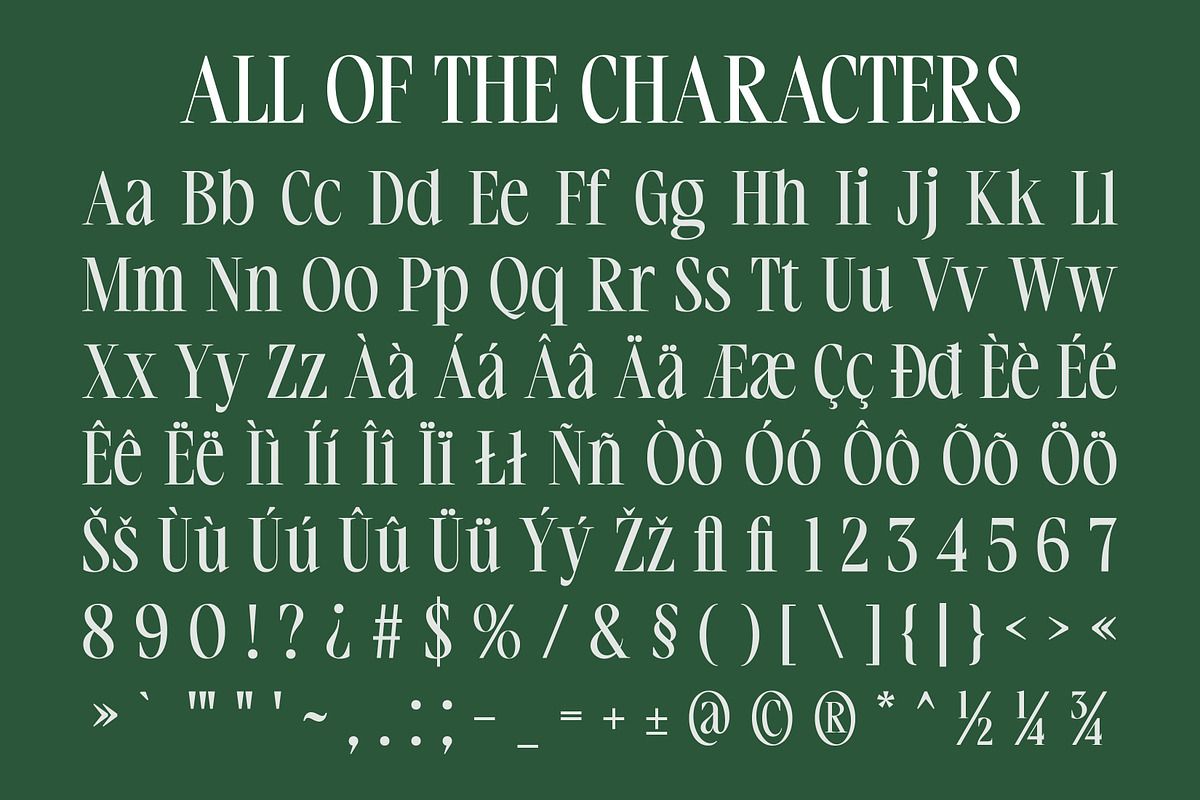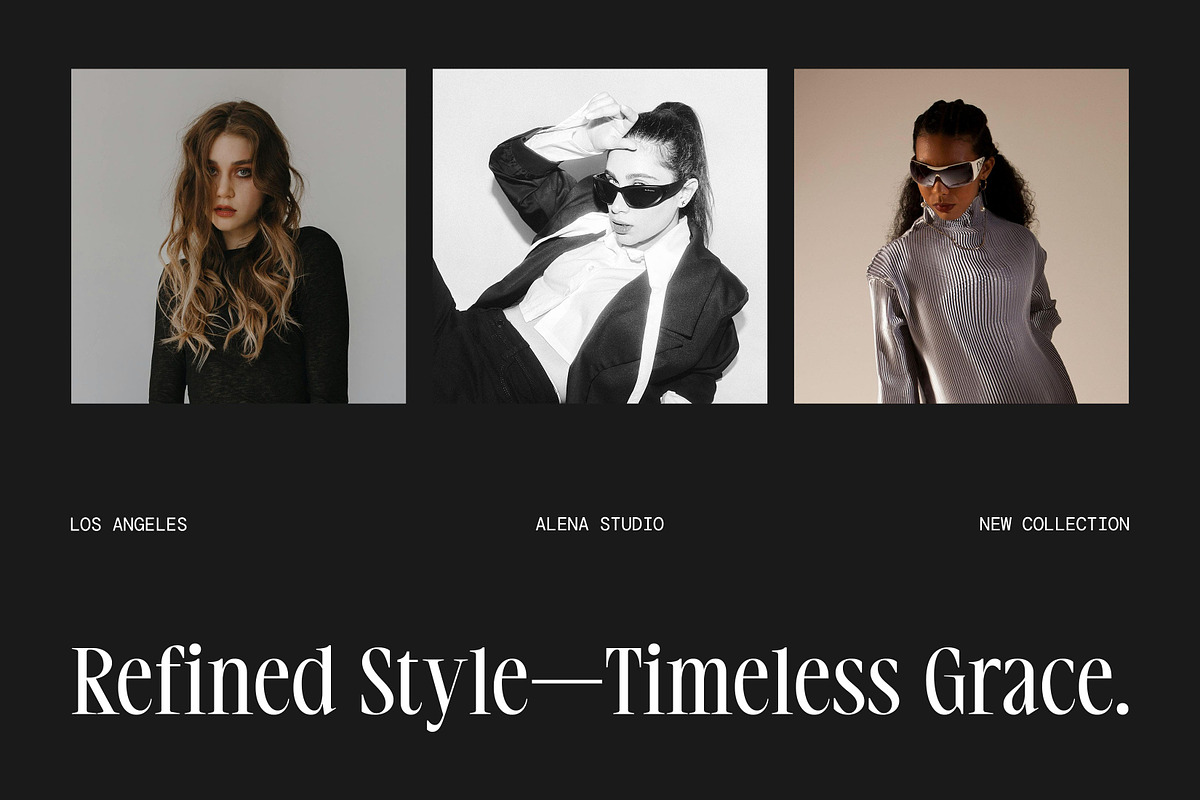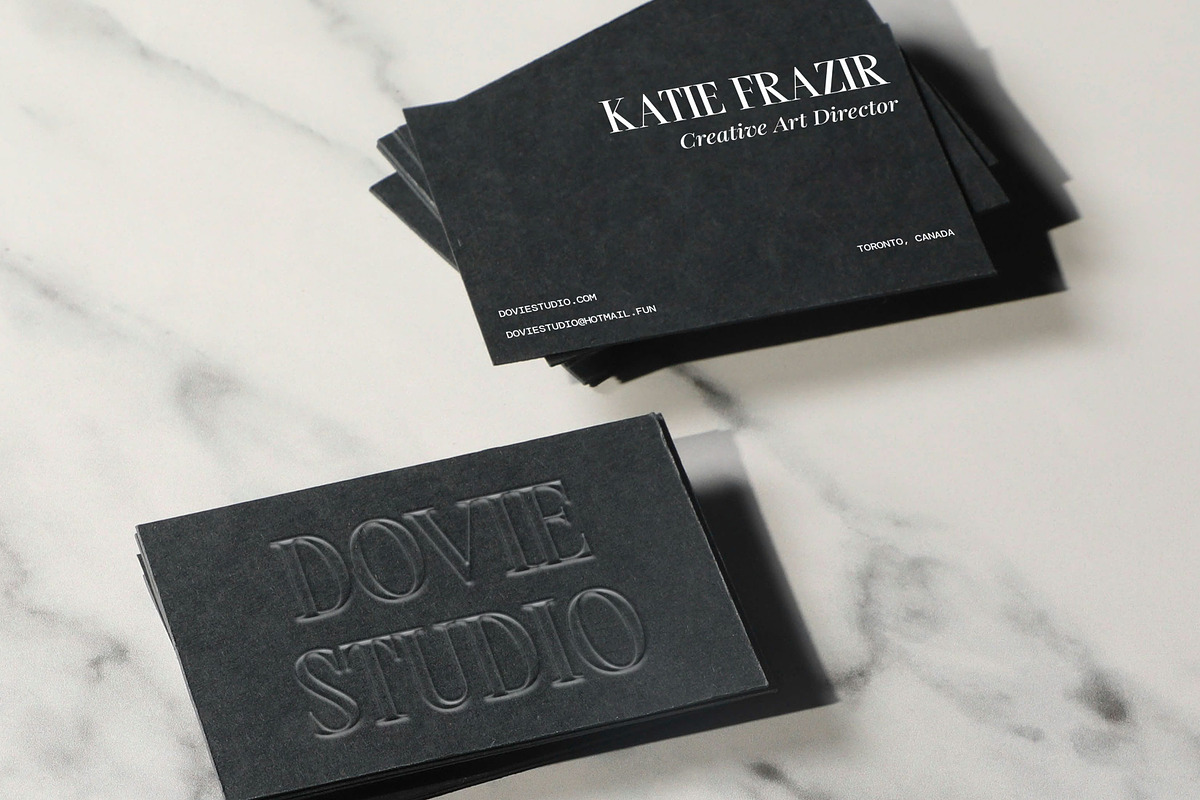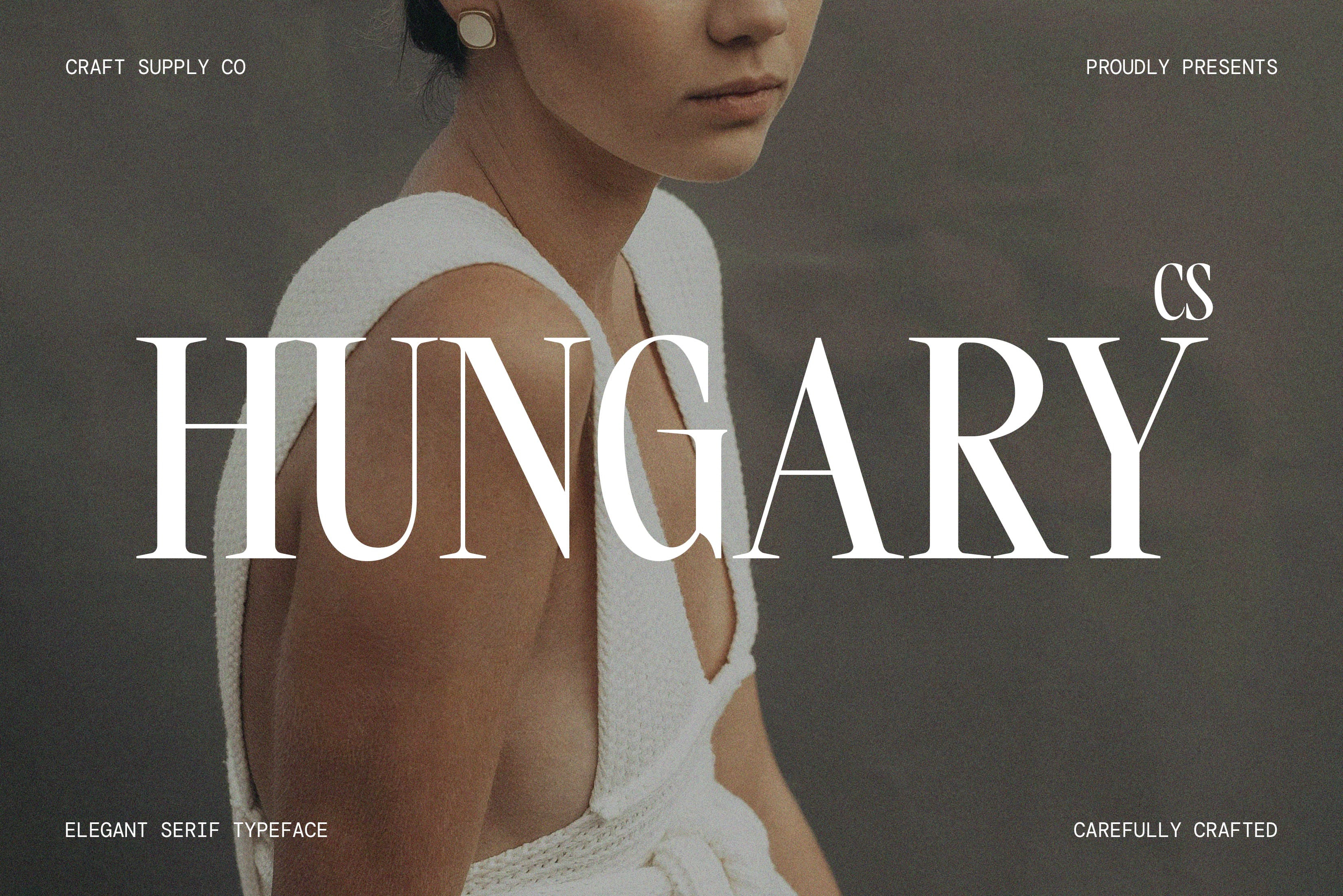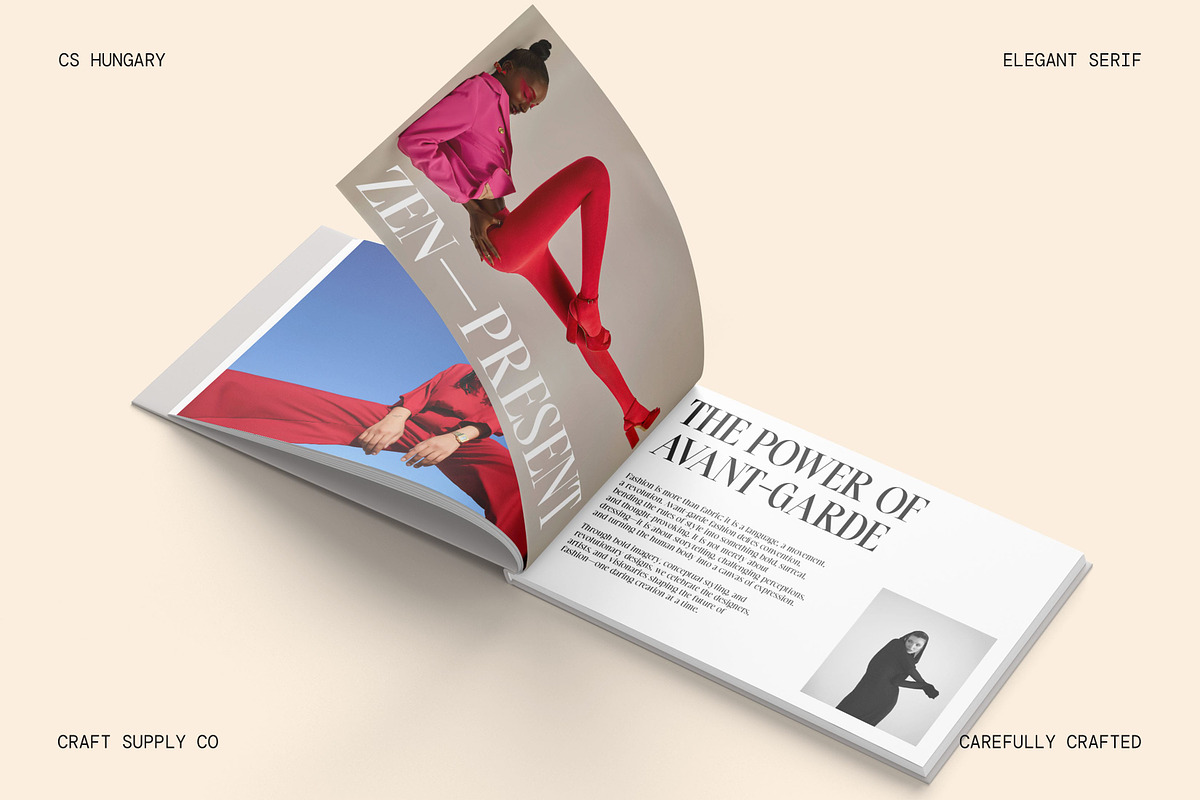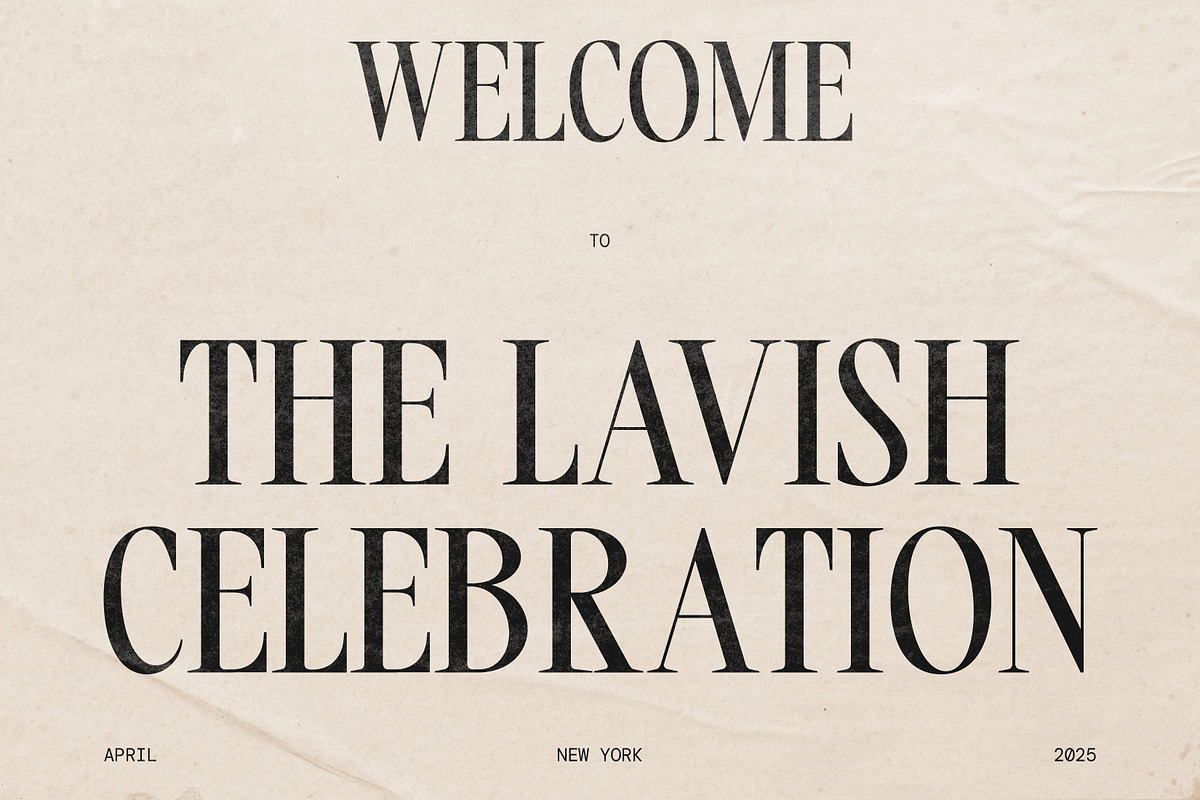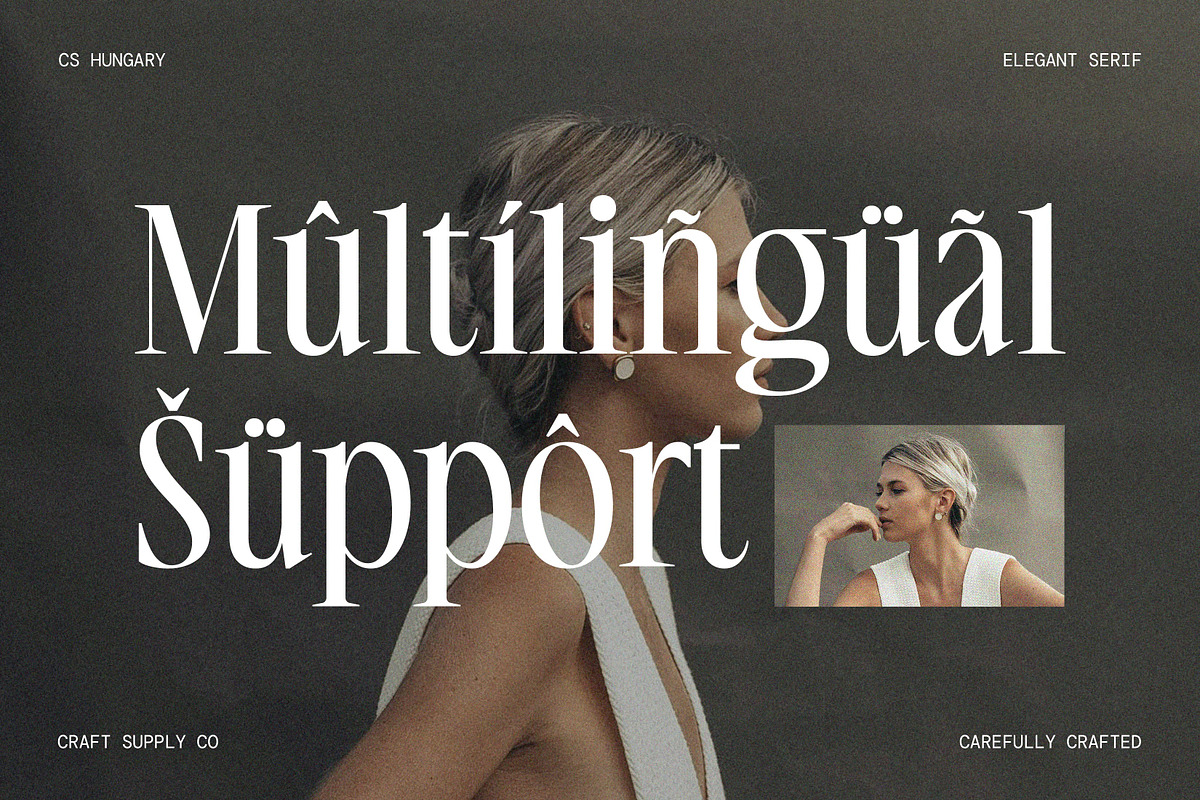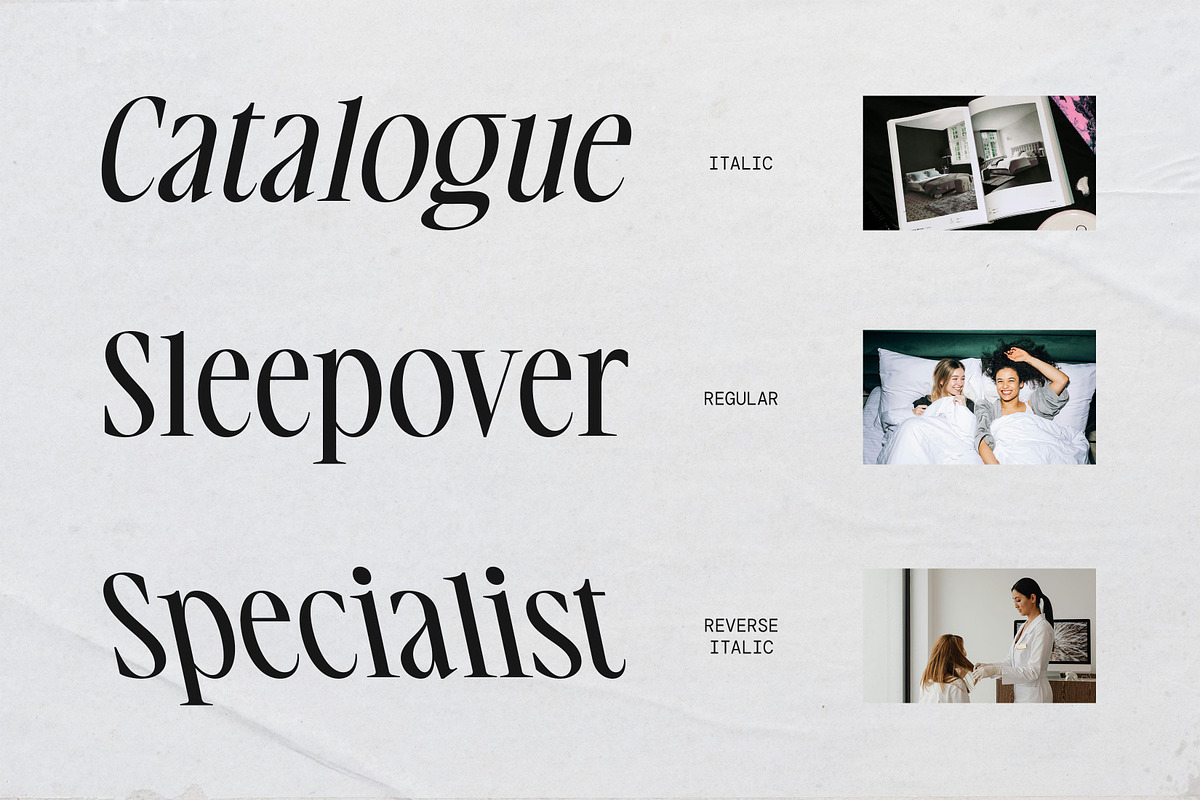
CS Hungary – Classic Font
CS Hungary – A Timeless Classic Serif Font
Elegant and Refined Modern Serif CS Hungary is a modern serif font with a long serif, minimalist, and clean design that radiates classic sophistication. Inspired by traditional serif typography, it blends timeless aesthetics with contemporary refinement, making it a perfect choice for projects that demand grace and exclusivity.
Timeless Aesthetic with Delicate Details This font features elongated, elegant serifs that add a sense of grandeur and prestige to any design. The balance of thin and thick strokes enhances its high-end appeal, while its precise and polished structure ensures readability. Whether used in editorial layouts, high-fashion branding, or luxury advertising, CS Hungary delivers an unmatched refined presence.
Minimalist Yet Luxurious Presence Despite its delicate and sophisticated appearance, CS Hungary maintains a strong visual impact, making it ideal for designs that require a high level of professionalism and class. Its subtle contrast and balanced proportions make it suitable for premium branding, upscale invitations, and exclusive packaging. The font’s understated elegance allows it to complement both modern and traditional design approaches.
Versatile for High-End Design Needs Designed for luxury-focused and modern applications, CS Hungary seamlessly adapts to branding, editorial layouts, logo design, and high-fashion projects. Its classic yet modern structure makes it a perfect typographic statement for those who seek a sophisticated and exclusive aesthetic.
- CS Hungary Regular
- CS Hungary Italic
- CS Hungary Reverse Italic